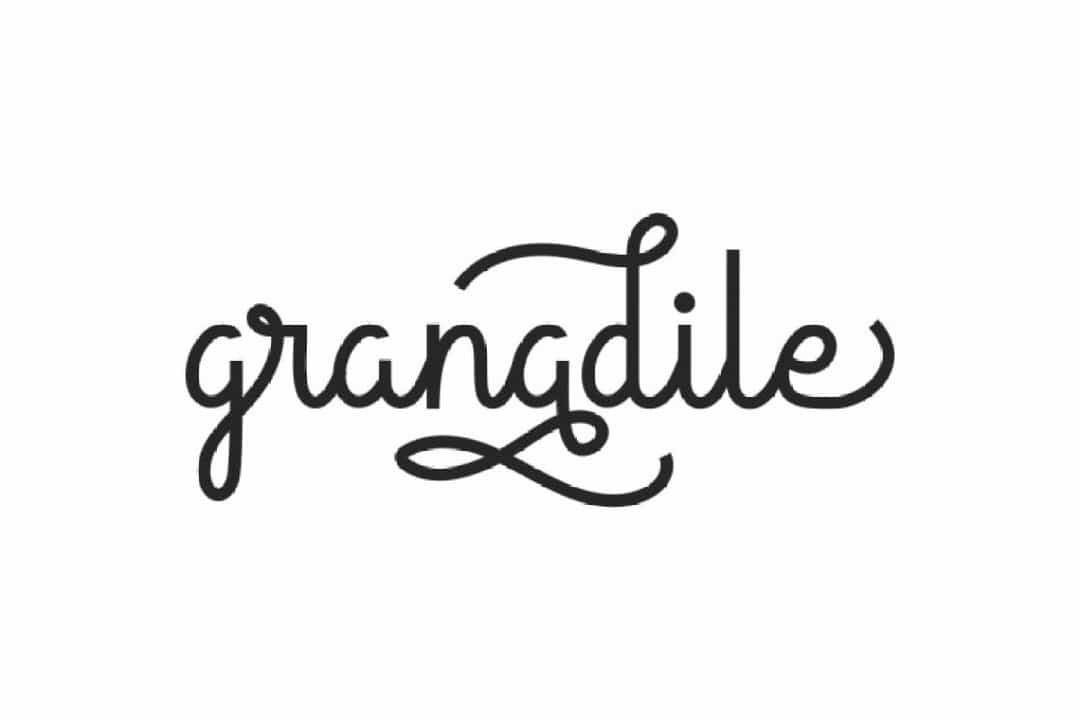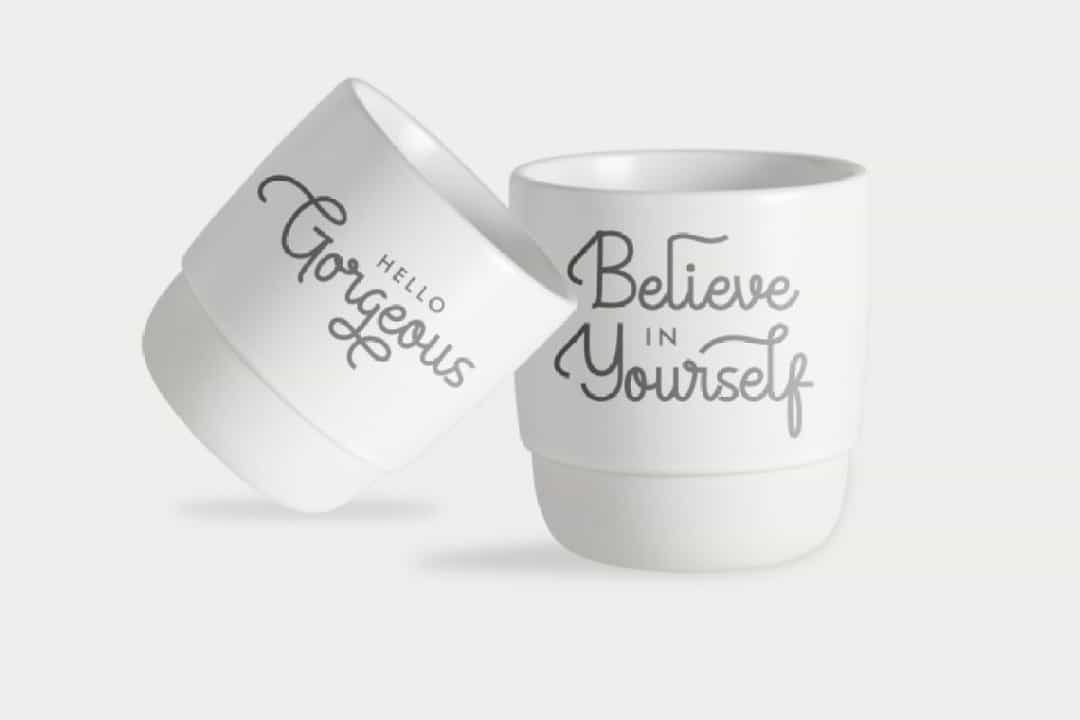
Discover Granadile Handwriting Monoline Script Font, part of the Handwritten Script Monoline collection—a versatile and unique font perfect for adding a personal touch to your projects. Download it for free and enjoy crafting designs with style, from invitations to social media posts. This font is available exclusively for personal use, giving you the freedom to create without limits. Unlock your creativity with Granadile Handwriting Monoline Script Font today!
Granadile is an illustrative handwriting monoline font with an expressive design and many alternate characters, created by NihStudio Font Designers: There are two characters’ names in this soap opera namely Widi and Suci. Granadile is a product originating from the Studio Indonesia which is perfect for a range of projects such as branding logos, stationery, business cards, stationary, flyers, signage, and flyers/brochures.